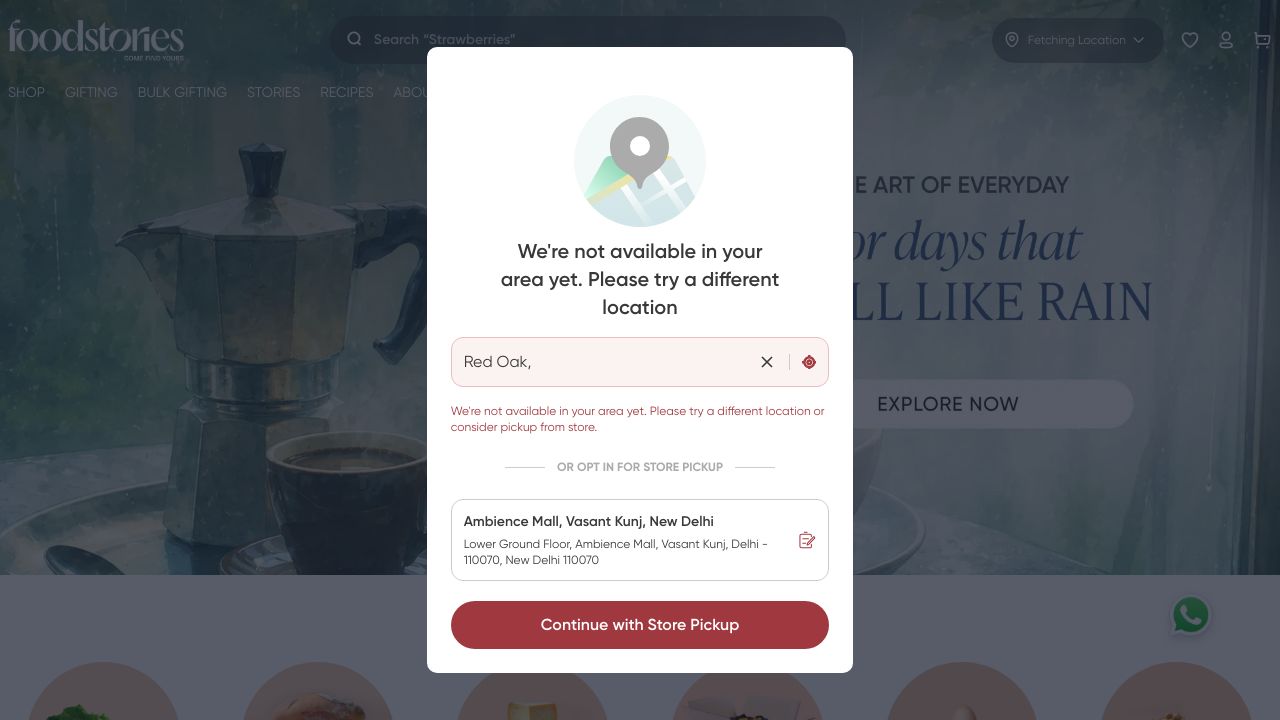
What fonts does Foodstories use?
Foodstories.shop embraces a vibrant visual identity that reflects its dedication to exceptional organic and hydroponic produce. The custom fonts, such as slick and Gilroy, create a lively and engaging atmosphere for users exploring culinary delights. Paired with playful typefaces like handlee and the ivy family, including ivyJournal and ivyOraDisplay, the typography encapsulates the essence of global ingredients and the delightful stories that inspire a radiant lifestyle in Delhi, Hyderabad, Bangalore, and Mumbai.
Frequently asked questions about Foodstories.shop's fonts
What fonts are used on foodstories.shop?
Foodstories.shop primarily uses custom fonts such as slick, Gilroy, handlee, and various ivy fonts including ivyJournal and ivyOraDisplay.
How do the fonts on foodstories.shop compare to alternatives?
Fonts like Gilroy and slick are unique to foodstories.shop, offering a distinctive look. Alternatives might include popular sans-serifs, but they won't capture the same character.
What styles and weights are used on foodstories.shop?
Foodstories.shop primarily utilizes weights of 400 for slick, Gilroy, and handlee, while ivy fonts like ivyPresto and ivyOra are available in weights of 100.